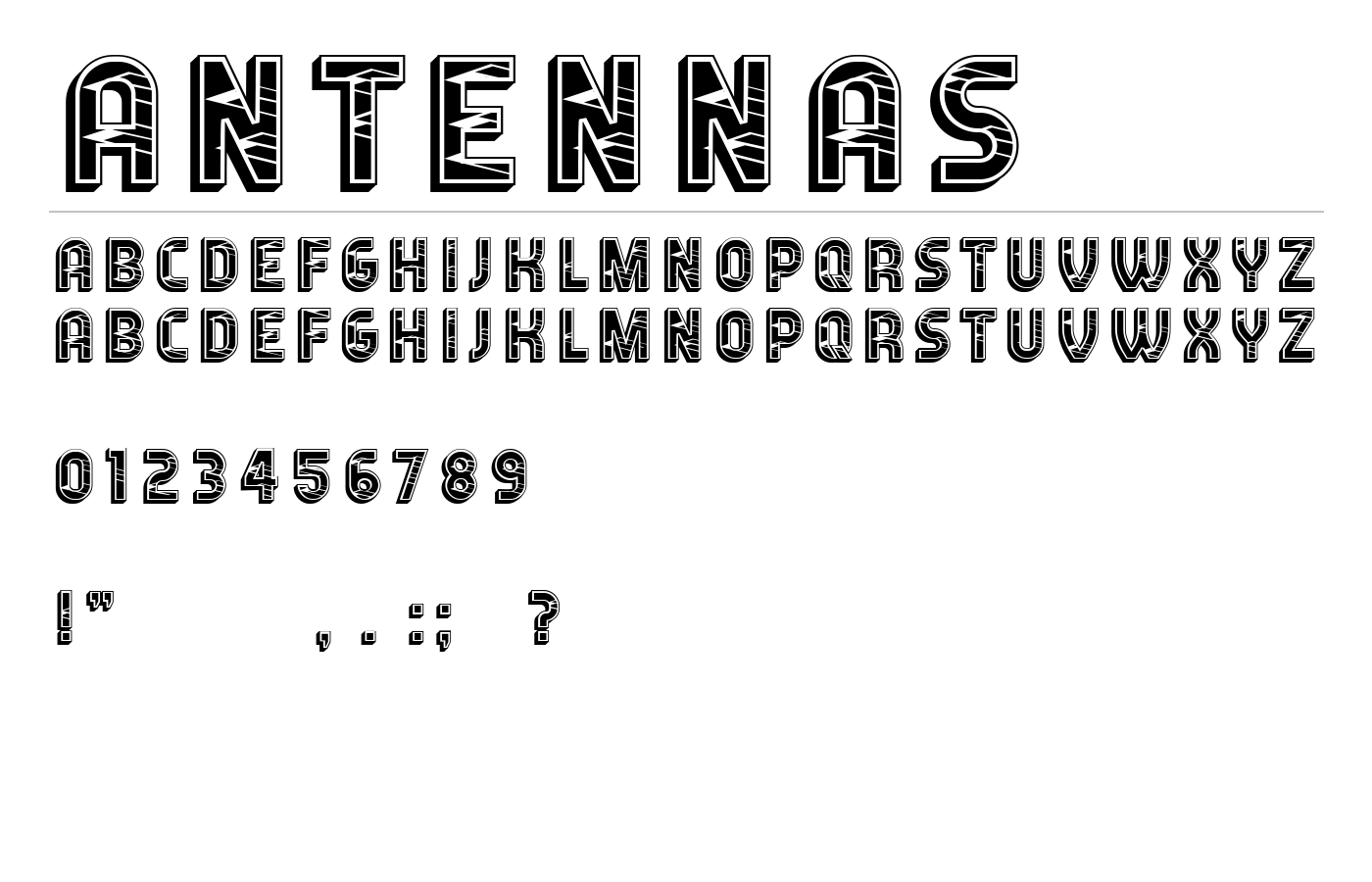
Antennas is a bold, condensed sans serif display font characterized by its unique, layered design that creates a three-dimensional, industrial look. With high contrast lines and geometric shapes, it conveys a modern, edgy personality perfect for attention-grabbing headlines, logos, and graphic projects that want to express strength and innovation. This font works best in creative branding and futuristic themes where a standout, architectural style is desired.
Antennas Font
About Antennas Font